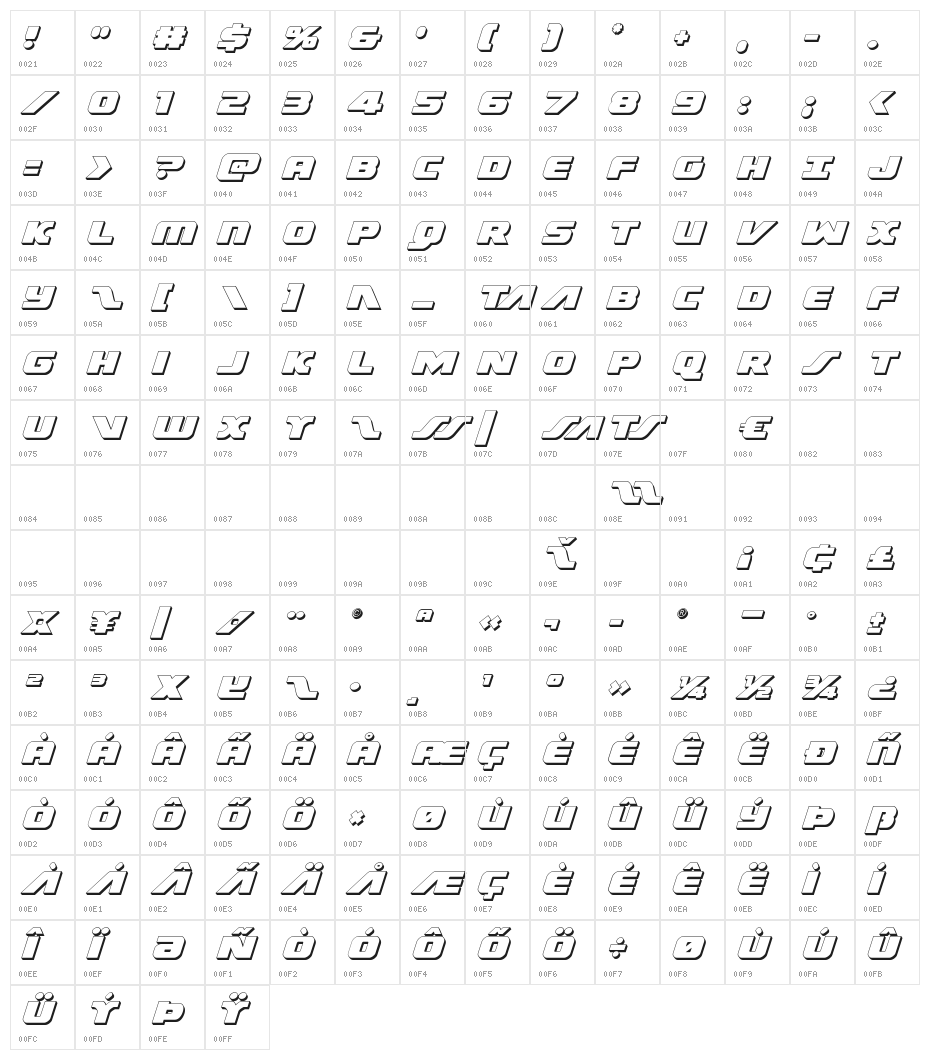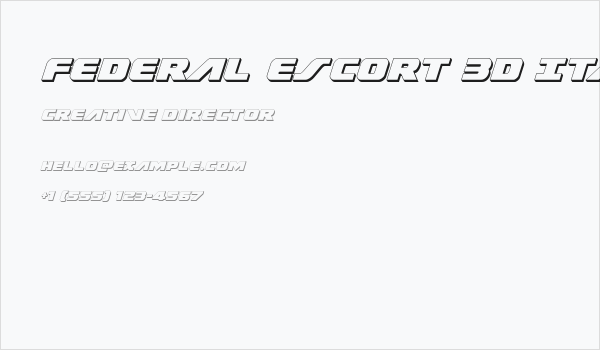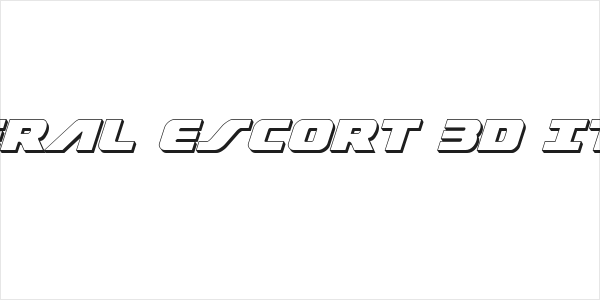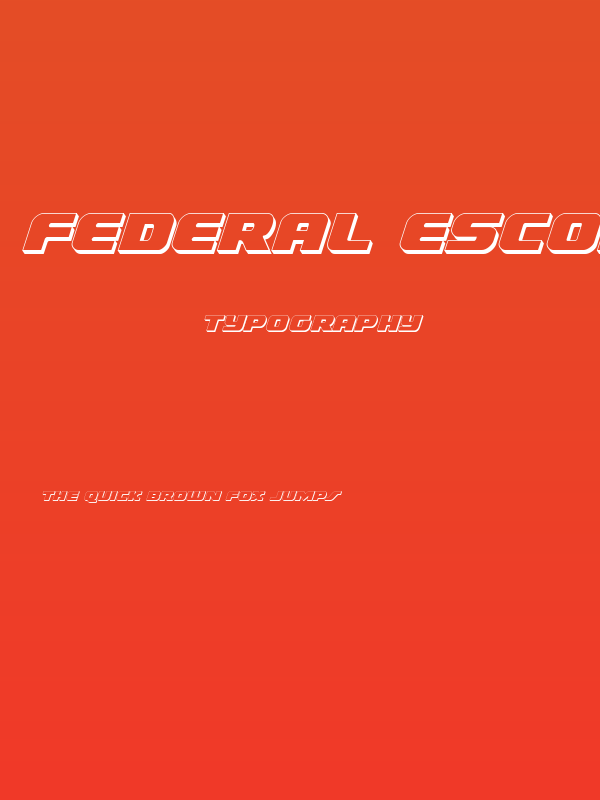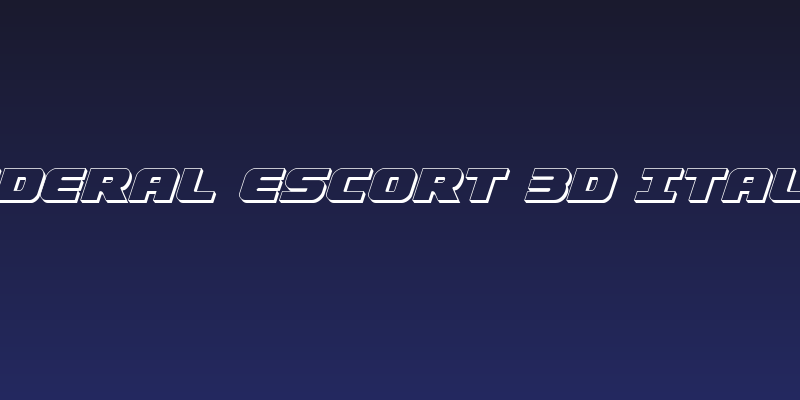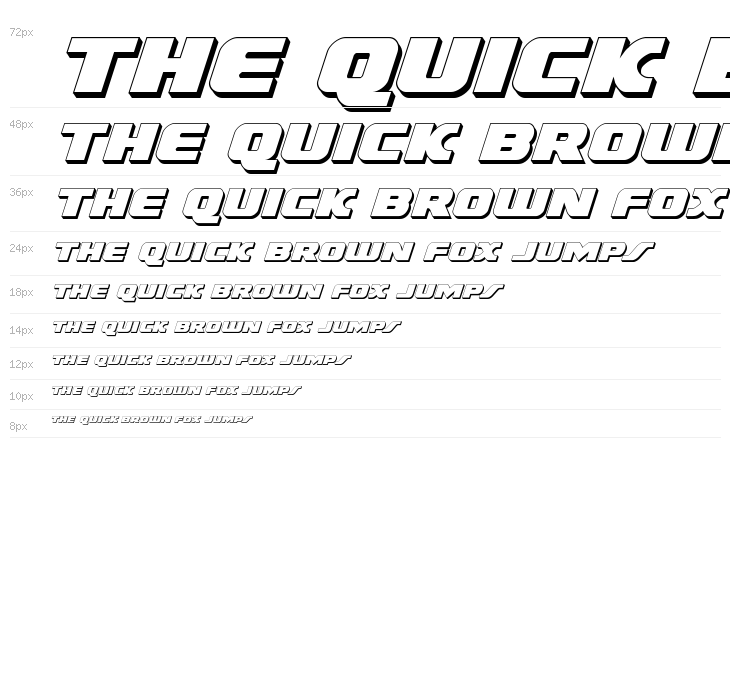
Federal Escort 3D Italic Font
Federal Escort 3D Italic Description
This font features a bold, three-dimensional design with an italic slant, giving it a dynamic and futuristic appearance. The characters are blocky and robust, with a distinct shadow effect that enhances the 3D illusion. The uppercase and lowercase letters maintain a consistent style, with sharp angles and clean lines. The numerals and special characters follow the same aesthetic, ensuring uniformity across all glyphs. This font's strong presence makes it ideal for attention-grabbing designs.